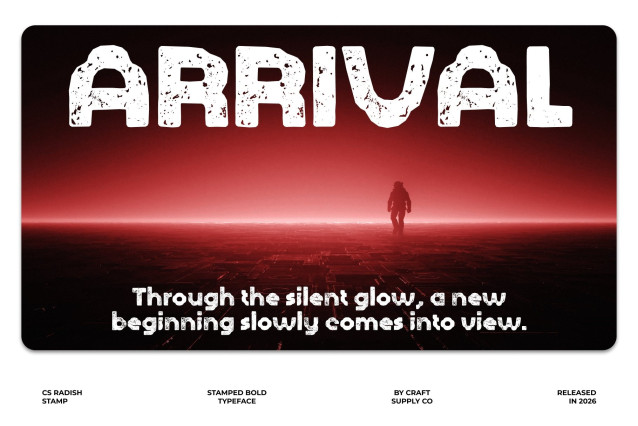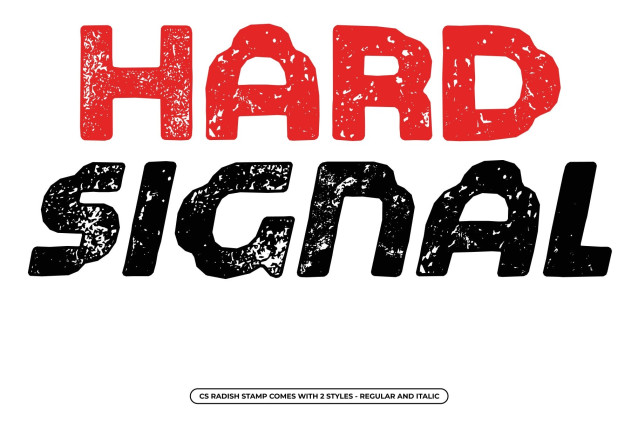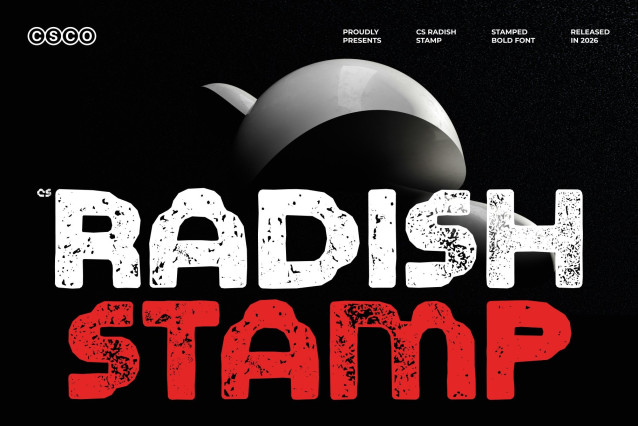
CS Radish Stamp Font
CS Radish Stamp – Futuristic Display Font: Where Techno Energy Meets Vintage Texture
Bold Futuristic Shapes with Strong Visual Impact
This is a techno-inspired display font designed with bold futuristic forms that instantly command attention. Its sharp structure and dynamic modern styling create a powerful visual presence filled with energy, innovation, and digital-inspired character. Every letter feels striking and expressive, making the font perfect for projects that seek a strong contemporary and high-tech appearance.
Modern Futuristic Style with Playful Personality
This font delivers a typographic voice that feels modern, energetic, and visually engaging. Despite its strong techno-inspired structure, the font maintains a playful and approachable personality suitable for creative and imaginative design projects.